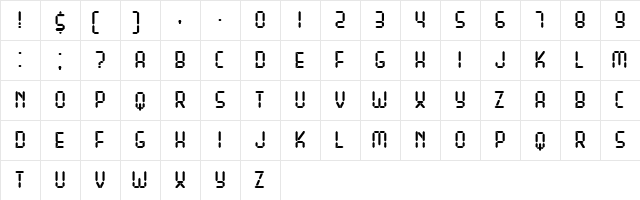
Remaster Regular
Design Context for Remaster Typeface
Remaster is a composed and adaptable typeface that performs quietly and consistently across a wide range of design contexts.